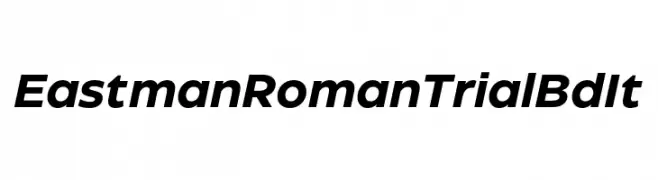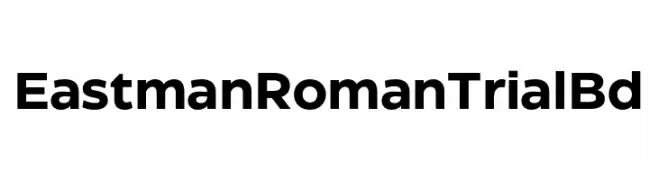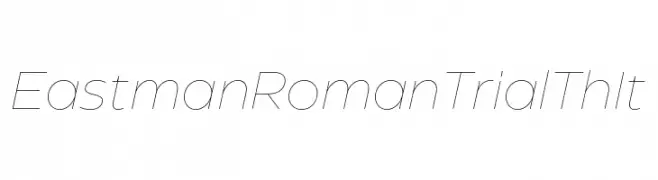
A modern, clean typeface with consistent stroke widths and geometric structure.
A bold, modern font with thick, uniform strokes and geometric shapes.
A modern, geometric typeface with clean lines and balanced spacing.
A sleek, modern font with clean lines and a slightly italicized style.
A bold, italicized font with a modern and impactful style.
A sleek, modern font with clean lines and a slight italic slant.
A modern, italicized font with thin, clean lines and a sleek appearance.
A bold, italicized font with a modern and dynamic style.
A modern, italicized font with clean lines and balanced spacing.
A bold, modern sans-serif font with clean lines and balanced spacing.